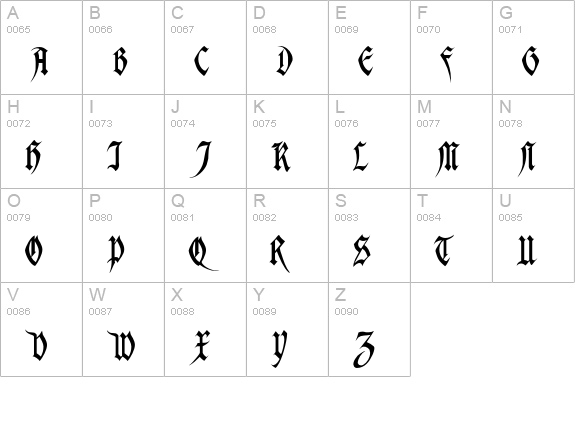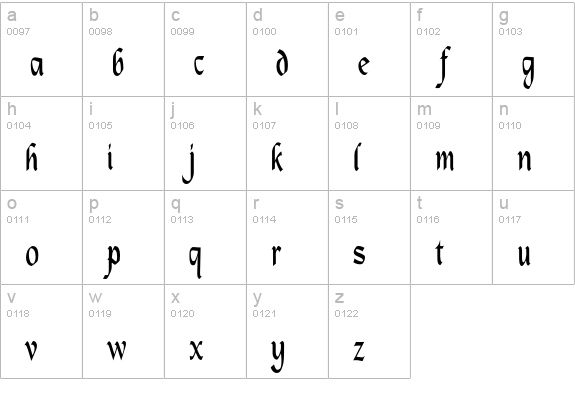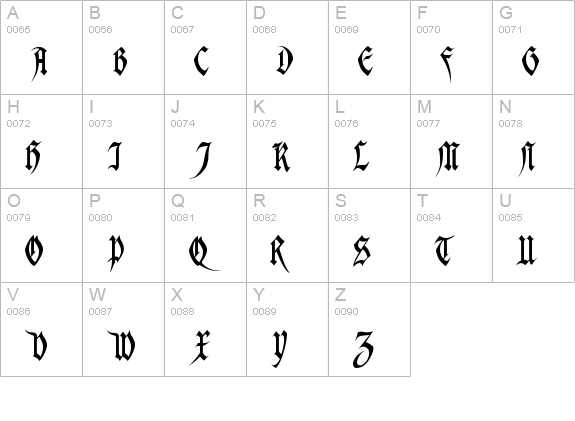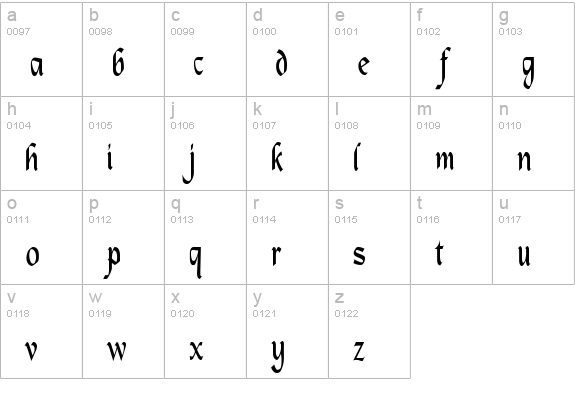
Magdelena Font Details
Magdelena is a beautifully elegant font that exudes a timeless charm. Its delicate curves and graceful strokes make it the perfect choice for projects that require a touch of sophistication and refinement. Whether you're designing wedding invitations, creating a logo for a high-end brand, or crafting a stunning headline for a magazine spread, Magdelena will effortlessly elevate your work to new heights. What sets Magdelena apart is not only its stunning aesthetics but also the fact that it is available for free. Yes, you read that right! This exquisite font can be downloaded at no cost from FontsMarket.com, making it accessible to designers and creatives of all budgets. So, whether you're a seasoned professional or just starting out, you can now add this exquisite typeface to your collection without breaking the bank. Magdelena's versatility is another standout feature. It seamlessly adapts to various design styles and contexts, making it a go-to choice for a wide range of creative projects. Its legibility remains intact even at smaller sizes, ensuring that your message is conveyed effortlessly. Plus, the font's extensive character set includes various ligatures and alternative glyphs, allowing you to play around and create unique typographic compositions. In addition to its visual appeal, Magdelena also boasts impeccable technical qualities. The font files are optimized for both web and print use, ensuring that your designs retain their impeccable quality across different mediums. Its clean outlines and well-balanced proportions guarantee a smooth and hassle-free experience when working with this typeface. So, whether you're a graphic designer, typographer, or simply someone who appreciates the beauty of typography, Magdelena is a font that should not be missed. With its timeless elegance, versatile nature, and free availability at FontsMarket.com, this font is a true gem that belongs in every designer's toolkit. Download Magdelena today and let your creativity soar to new heights.